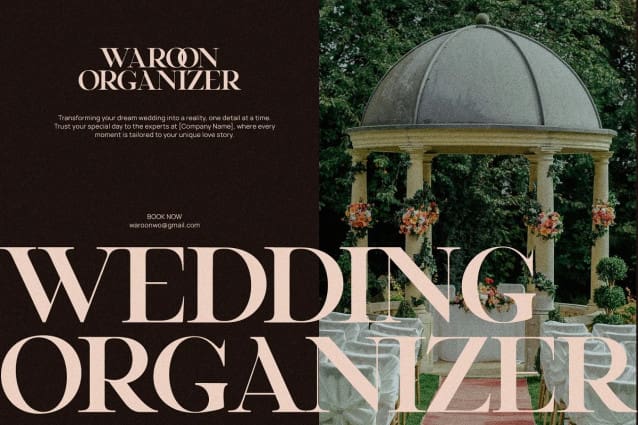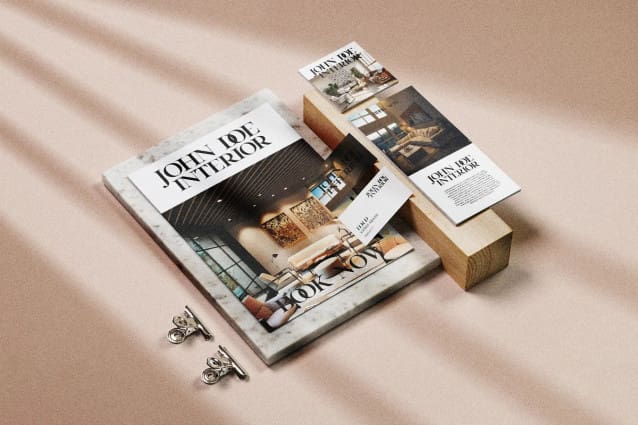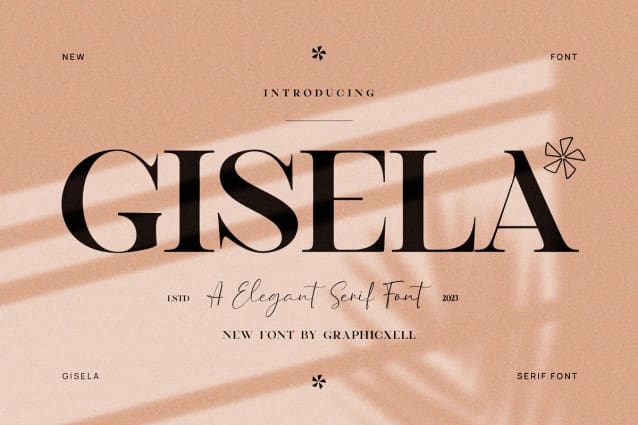
Gisela Font
Gisela Font, inspired by the famous minimalist logo perfect for the purposes of designing templates, brochures, videos, advertising branding, logos, invitation, layout design, elegant crafting, beauty design and more.